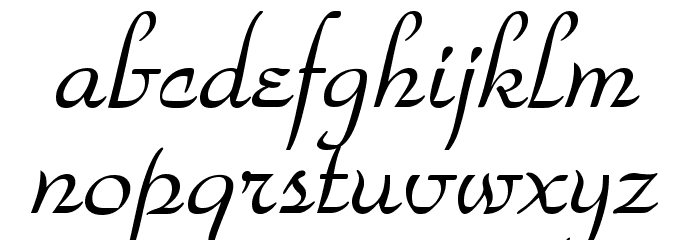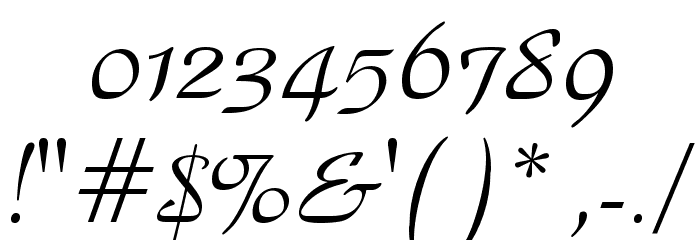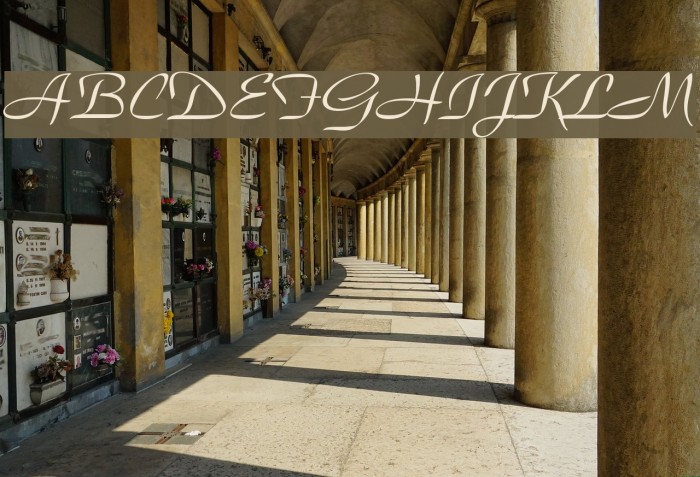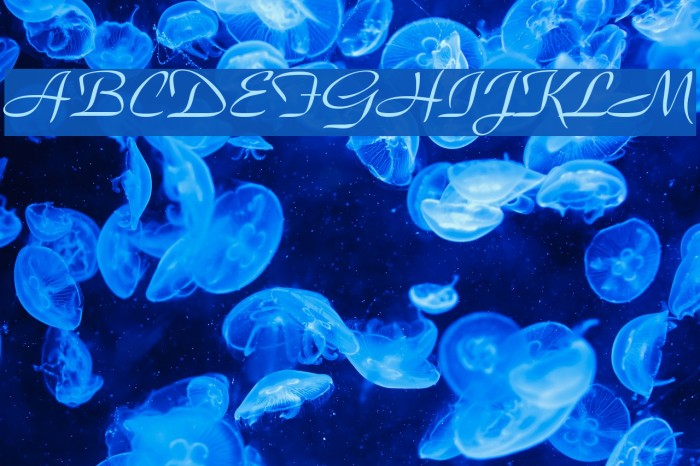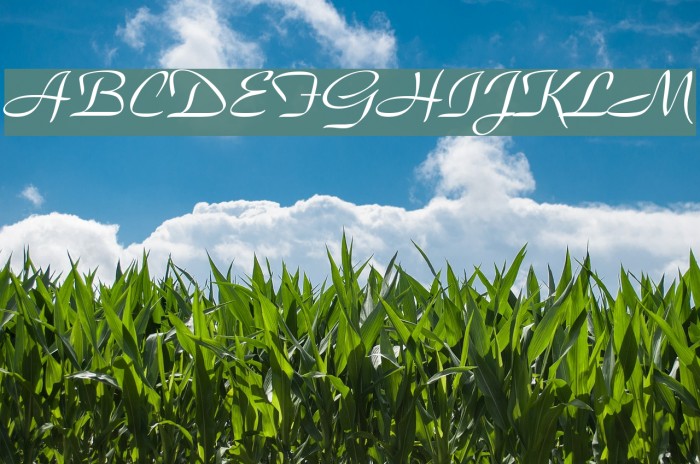
Snooty Font
This elegant script font features flowing, cursive letterforms with a sophisticated flair. The uppercase letters are characterized by sweeping curves and delicate loops, while the lowercase letters maintain a consistent slant, enhancing the font's graceful appearance. The numerals are stylish and align well with the overall aesthetic, providing a cohesive look. Special characters are thoughtfully designed, maintaining the font's fluidity and charm. This font exudes a sense of refinement and is perfect for projects that require a touch of elegance.
An elegant script font with flowing, cursive letterforms and sophisticated style.
- Proposed Projects: Ideal for wedding invitations, elegant branding, greeting cards, and upscale packaging.
- Overall Style: Elegant
- Use Case: Logos, Invitations, Decorative text